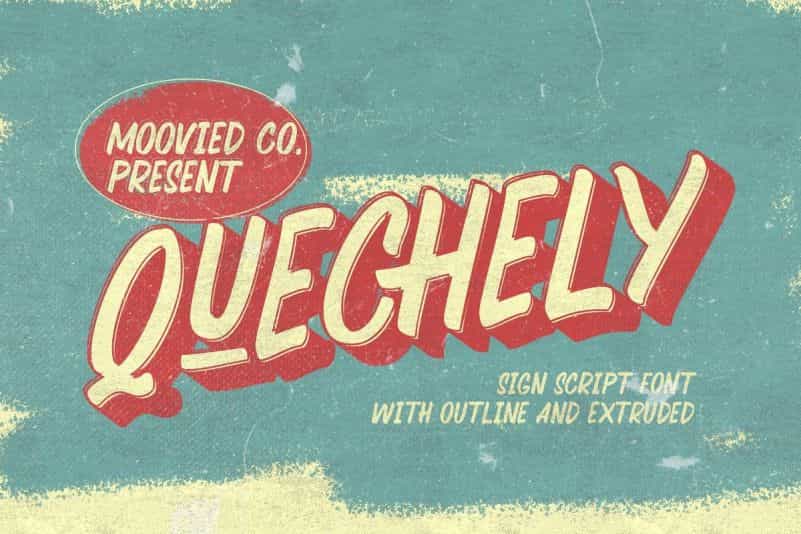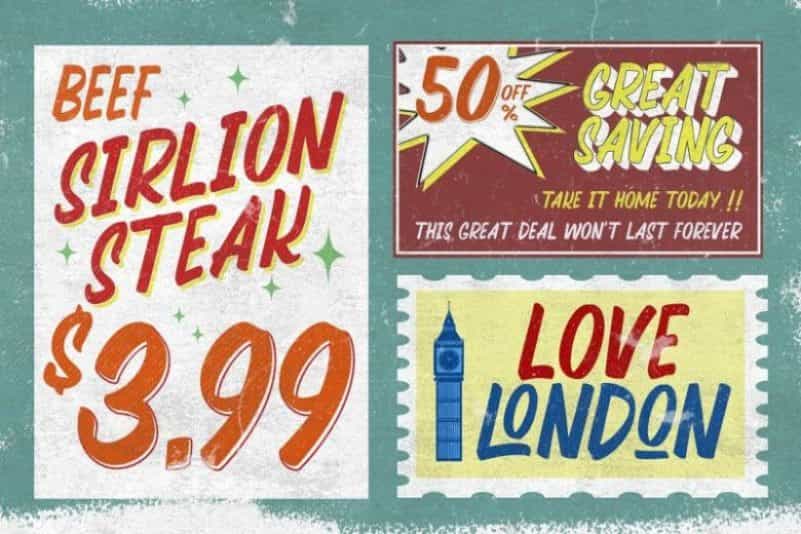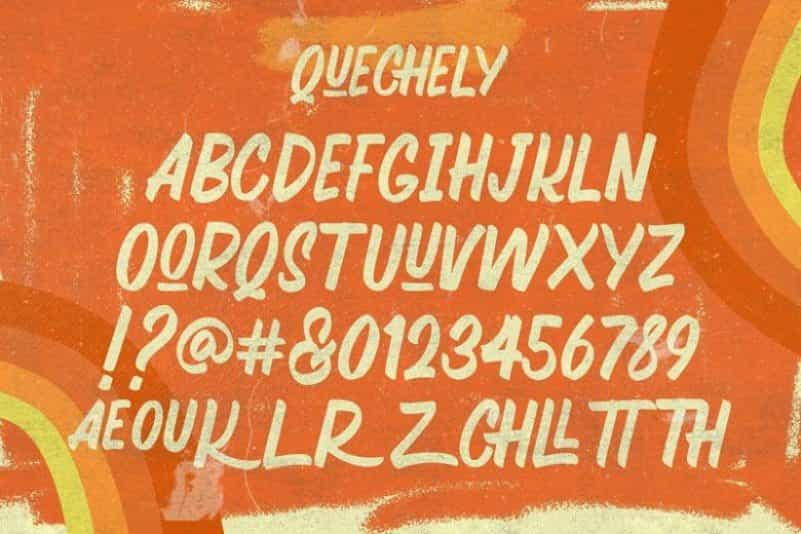
New fonts for audio-visual signs that need a bit of style with retro design, designed with his bold script type family containing 3 styles and wireframe, this font was created by retros typographic style in the 1960’s. You don’t have to draw shadows, this font is fitted with a layer font so you can save time creating 60s-style designs.